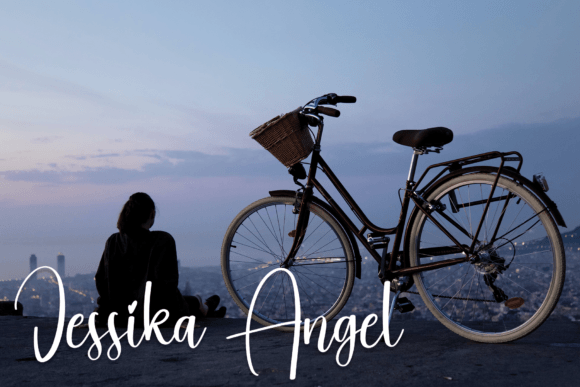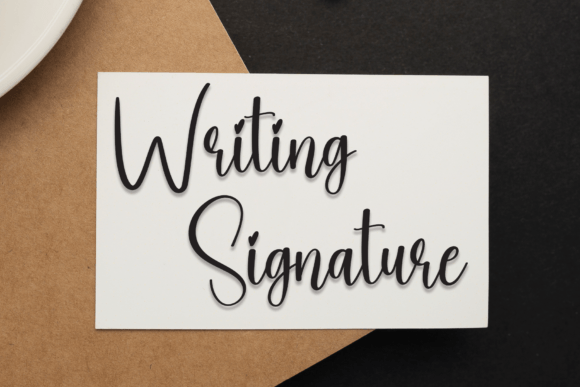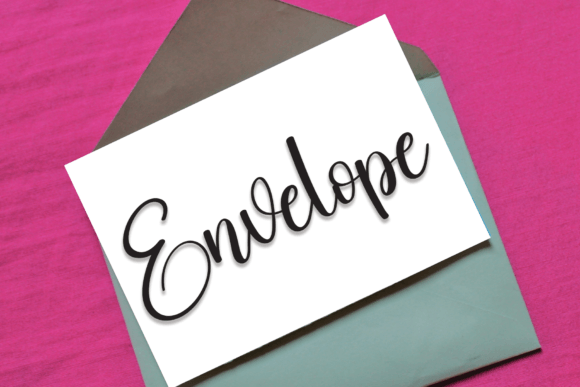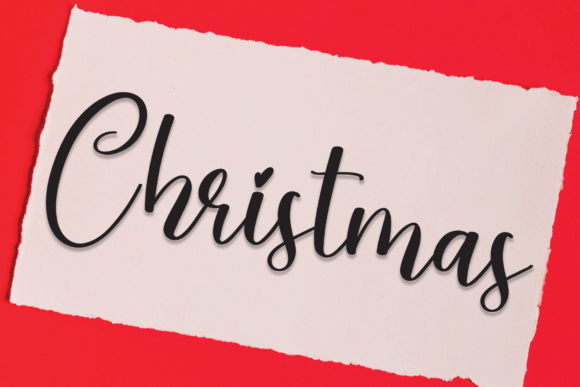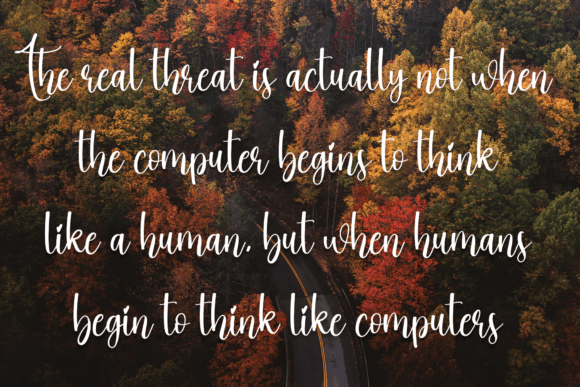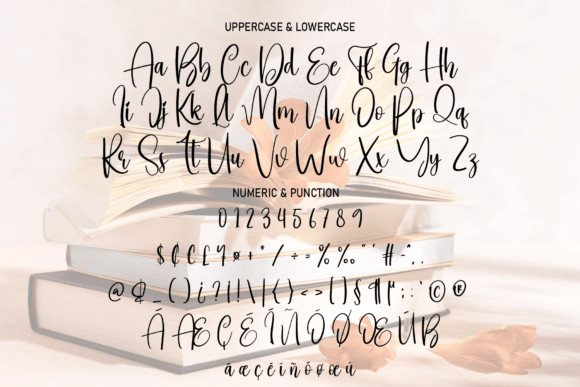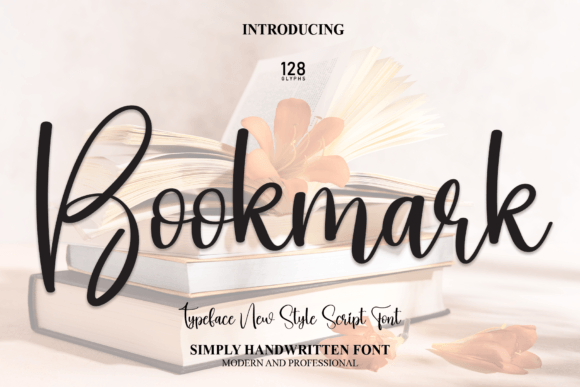
The Bookmark Font: A Sweet and Romantic Addition to Your Design Toolkit
As designers, we’ve all been there – stuck in the middle of a project, struggling to find the perfect font to bring our vision to life. I recall a particularly daunting experience when a client requested a custom wedding invitation design, and I was determined to find a font that would exceed their expectations. That’s when I stumbled upon the Bookmark font, a sweet and romantic handwritten script font that has since become a staple in my design toolkit.
A Personal Review: What I Love About Bookmark Font
The Bookmark font has won my heart with its incredibly versatile style, making it perfect for a wide range of design projects. Here’s what I love about it:
• ✨ Elegant and flowing script style that’s perfect for wedding invitations, stationary art, and social media posts
• 💕 Beautifully crafted to evoke a sense of romance and whimsy
• 🎨 Versatile and adaptable to various design styles and themes
While the Bookmark font is an excellent addition to any design project, there are a few minor quirks to be aware of:
• 🤔 Some letters may require manual kerning to achieve optimal spacing
• ⚠️ Limited availability of bold or heavy weights, which may not be suitable for designs requiring a strong, bold font
The Designer Inspiration Behind Bookmark Font
The Bookmark font was designed with the intention of creating a beautiful and romantic script font that would evoke feelings of love and nostalgia. The designer aimed to craft a font that would be versatile and adaptable to various design styles and themes, making it perfect for a wide range of creative projects.
Q: What type of designs is the Bookmark font best suited for?
A: The Bookmark font is perfect for designs that require a romantic and elegant touch, such as wedding invitations, stationary art, and social media posts.
Q: Is the Bookmark font available in multiple weights?
A: The Bookmark font may have limited weight options, but it is still a versatile font that can be used in a variety of design projects.